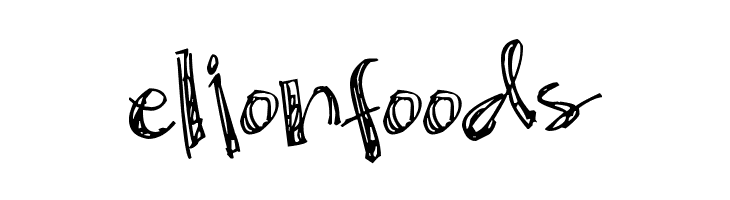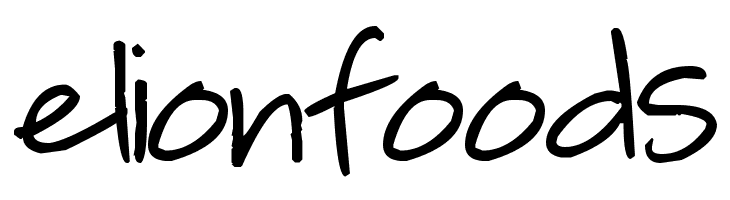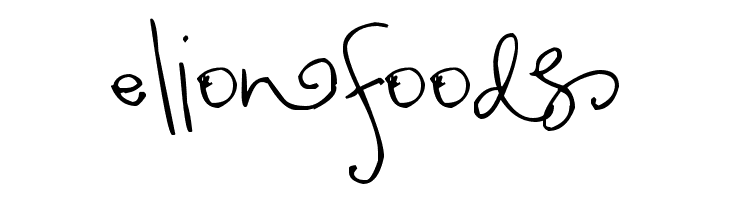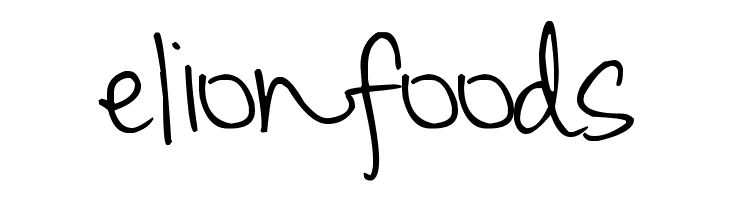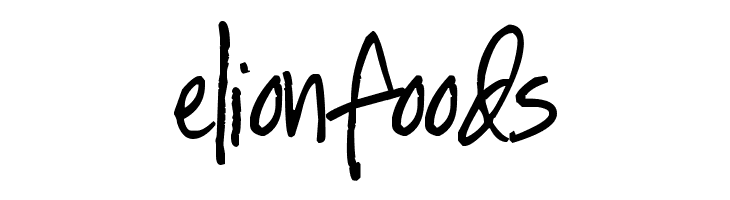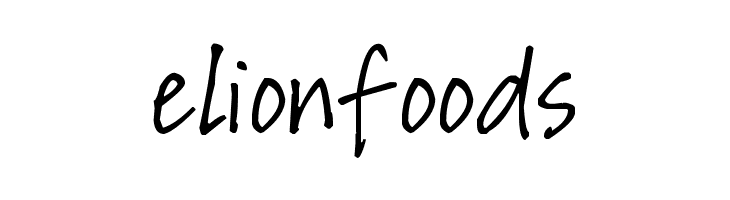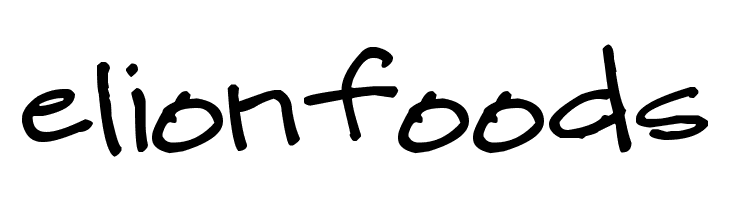
( Free for a personal use. For a commercial use please visit www.kevinandamanda.com ) A playful, handwritten font with a casual and dynamic style. Download 152 Downloads@WebFont
( Free for a personal use. For a commercial use please visit www.kevinandamanda.com ) A casual, handwritten font with a playful and informal style. Download 413 Downloads@WebFont
( Free for a personal use. For a commercial use please visit www.kevinandamanda.com ) A playful, casual handwritten font with flowing strokes and a friendly tone. Download 161 Downloads@WebFont
( Free for a personal use. For a commercial use please visit www.kevinandamanda.com ) A playful, hand-drawn font with a whimsical and casual style. Download 150 Downloads@WebFont
( Free for a personal use. For a commercial use please visit www.kevinandamanda.com ) A whimsical, curly script font with elegant swirls and a playful handwritten style. Download 1092 Downloads@WebFont
( Free for a personal use. For a commercial use please visit www.kevinandamanda.com ) A playful, handwritten font with a casual and friendly style. Download 144 Downloads@WebFont
( Free for a personal use. For a commercial use please visit www.kevinandamanda.com ) A playful, handwritten font with bold, rounded strokes and a casual feel. Download 250 Downloads@WebFont
( Free for a personal use. For a commercial use please visit www.kevinandamanda.com ) A playful, handwritten font with a casual and dynamic style. Download 290 Downloads@WebFont
( Free for a personal use. For a commercial use please visit www.kevinandamanda.com ) A playful, handwritten font with bold, irregular strokes. Download 216 Downloads@WebFont
( Free for a personal use. For a commercial use please visit www.kevinandamanda.com ) A playful, handwritten font with tall, narrow letters and a casual style. Download 340 Downloads@WebFont
( Free for a personal use. For a commercial use please visit www.kevinandamanda.com ) Hand-drawn doodle icon set with a whimsical, playful feel. Download 133 Downloads@WebFont
( Free for a personal use. For a commercial use please visit www.kevinandamanda.com ) A bold, playful handwritten font with expressive strokes and a casual feel. Download 936 Downloads@WebFont
( Free for a personal use. For a commercial use please visit www.kevinandamanda.com ) A playful, casual handwritten font with an organic and dynamic style. Download 324 Downloads@WebFont
( Free for a personal use. For a commercial use please visit www.kevinandamanda.com ) A bold, playful handwritten font with a casual and friendly style. Download 159 Downloads@WebFont
( Free for a personal use. For a commercial use please visit www.kevinandamanda.com ) A playful, casual handwritten font with fluid, connected letterforms. Download 105 Downloads@WebFont
( Free for a personal use. For a commercial use please visit www.kevinandamanda.com ) A casual, handwritten font with a playful and informal style. Download 134 Downloads@WebFont
( Free for a personal use. For a commercial use please visit www.kevinandamanda.com ) A playful, casual handwritten script with thin, flowing strokes. Download 140 Downloads@WebFont
( Free for a personal use. For a commercial use please visit www.kevinandamanda.com ) A playful, casual handwritten font with irregular, organic strokes. Download 432 Downloads@WebFont
( Free for a personal use. For a commercial use please visit www.kevinandamanda.com ) A playful, casual handwritten font with loose, flowing strokes. Download 356 Downloads@WebFont
( Free for a personal use. For a commercial use please visit www.kevinandamanda.com ) A playful, casual handwritten font with irregular strokes and a dynamic slant. Download 152 Downloads@WebFont
( Free for a personal use. For a commercial use please visit www.kevinandamanda.com ) A playful, handwritten font with tall, narrow characters and whimsical decorative elements. Download 326 Downloads@WebFont
( Free for a personal use. For a commercial use please visit www.kevinandamanda.com ) A playful, bold handwritten font with a casual and friendly style. Download 305 Downloads@WebFont
( Free for a personal use. For a commercial use please visit www.kevinandamanda.com ) A playful, casual handwritten font with irregular, whimsical strokes. Download 169 Downloads@WebFont
( Free for a personal use. For a commercial use please visit www.kevinandamanda.com ) A playful, handwritten font with a casual and informal style. Download 166 Downloads@WebFont
( Free for a personal use. For a commercial use please visit www.kevinandamanda.com ) A playful, casual handwritten font with dynamic strokes. Download 401 Downloads@WebFont
( Free for a personal use. For a commercial use please visit www.kevinandamanda.com ) A playful, sketch-like handwritten font with dynamic strokes. Download 1255 Downloads@WebFont
( Free for a personal use. For a commercial use please visit www.kevinandamanda.com ) A playful, handwritten font with a casual and dynamic style. Download 712 Downloads@WebFont
( Free for a personal use. For a commercial use please visit www.kevinandamanda.com ) A playful, casual handwritten font with a lively and informal style. Download 158 Downloads@WebFont
( Free for a personal use. For a commercial use please visit www.kevinandamanda.com ) A playful, casual handwritten font with fluid, dynamic strokes. Download 1347 Downloads@WebFont
( Free for a personal use. For a commercial use please visit www.kevinandamanda.com ) A casual, handwritten font with a playful and informal style. Download 396 Downloads@WebFont